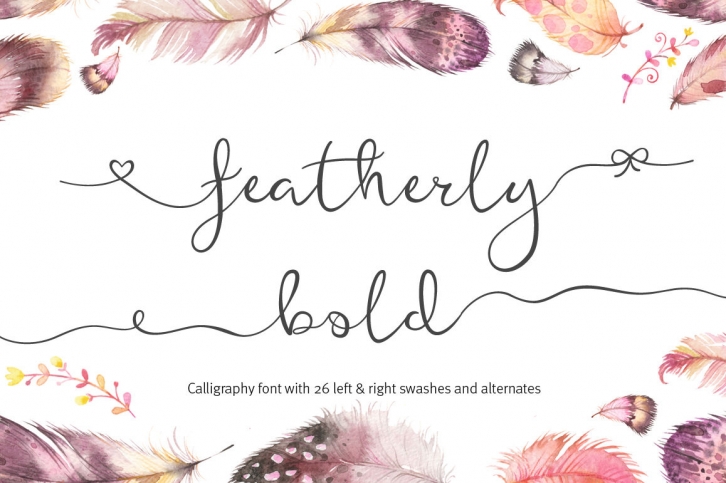
New alternate characters have been added!
featherly is a hand drawn, elegant, modern calligraphic font perfect for wedding design projects, invitations, greeting cards, signatures, watermarks, logos, handwriting and more.
The font includes some foreign language glyphs so please do take a look at the other screenshots to see what's included in this font and what you can do with it.